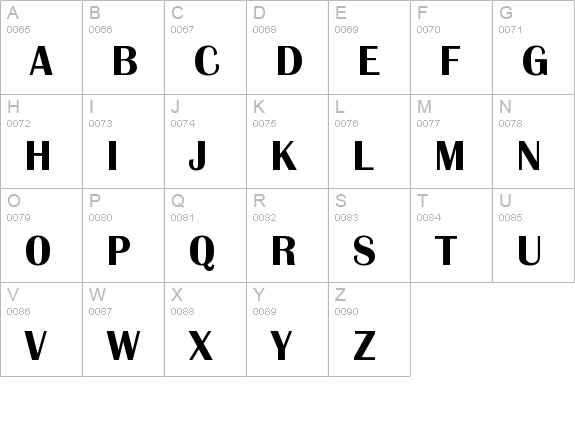
GrenobleSerial-Bold is a strong, high-contrast variant in the GrenobleSerial typeface family \xE2\x80\x94 well suited to headlines, attention-grabbing titles, and strong calls-to-action.
GrenobleSerial-Bold is a modern and bold typeface that exudes confidence and strength. With its sleek lines and commanding presence, this font is perfect for making a bold statement in your designs. Whether you're creating a striking logo or eye-catching poster, GrenobleSerial-Bold is sure to grab attention. What's even better is that GrenobleSerial-Bold is available for free download at FontsMarket.com. This means you can add this powerful font to your collection without any cost. Don't miss out on the opportunity to enhance your designs with the bold and impactful GrenobleSerial-Bold font.